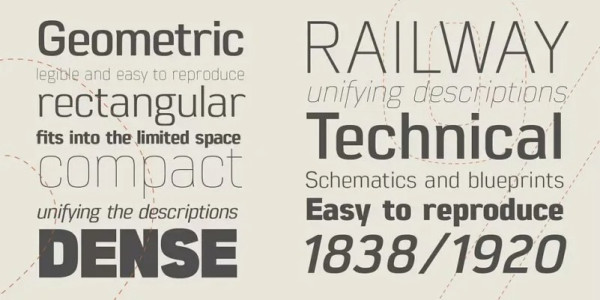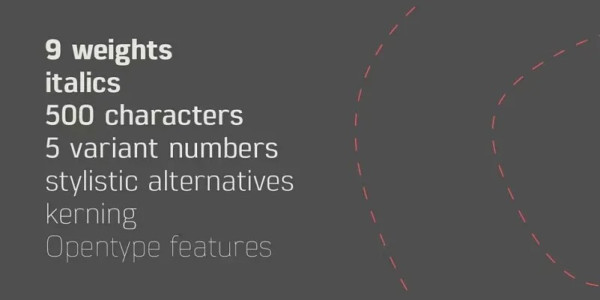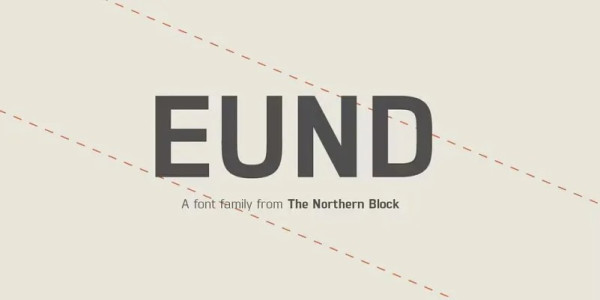
Eund Font
Eund Font is a geometric sans serif with minimal contrast exclusively available from The Northern Block. Shallow curves are smoothed out of rectangular letterforms to produce a fresh, legible typeface best suited to information-based applications.
Details include nine weights with matching italics and over 800 characters per style. OpenType features consist of five variations of numerals, including inferiors, superiors, fractions, alternate lowercase a and e, and language support covering Western, Southern, Central Europe and Cyrillic.